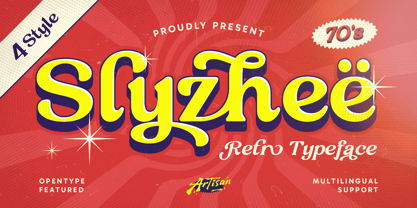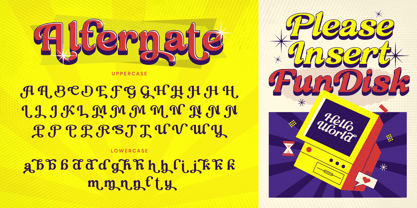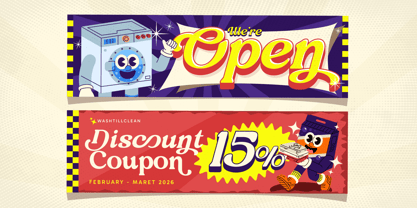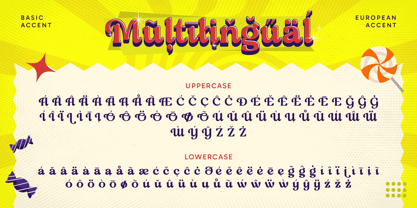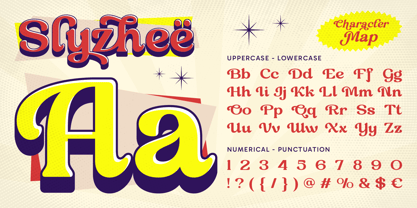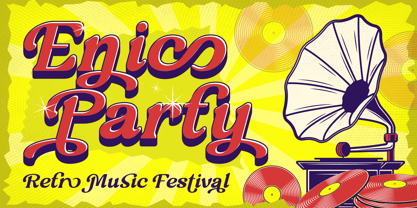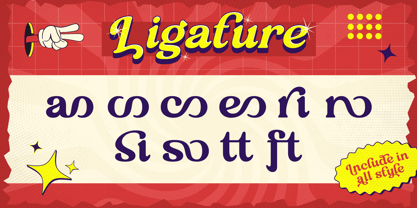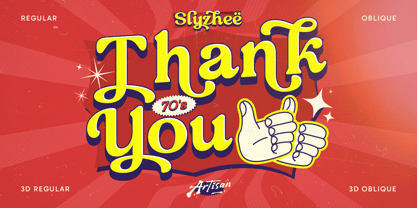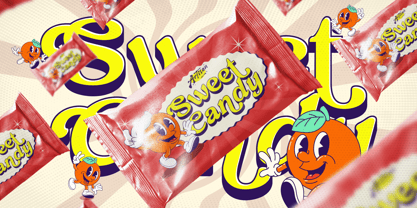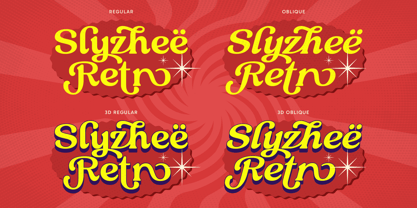
Slyzhee
par Artisan Themes
La famille de polices Slyzhee a été conçue par Meidy Meichico et publiée par Artisan Themes. Slyzhee contient 4 styles et options de package familial. En savoir plus sur cette famille
Slyzheë is a bold retro typeface inspired by classic 70’s lettering style. It features playful curves, thick strokes, and eye-catching shapes that instantly bring a vintage and groovy vibe. This font comes with 4 styles, giving you flexibility to create unique looks—from flat retro designs to bold 3D effects. Slyzheë is perfect for posters, logos, packaging, branding, album covers, and retro-themed designs. Features: A - Z set (Uppercase & Lowercase), Number, Punctuation, Alternates, Ligatures, Multilingual
Concepteurs: Meidy Meichico
Fonderie: Artisan Themes